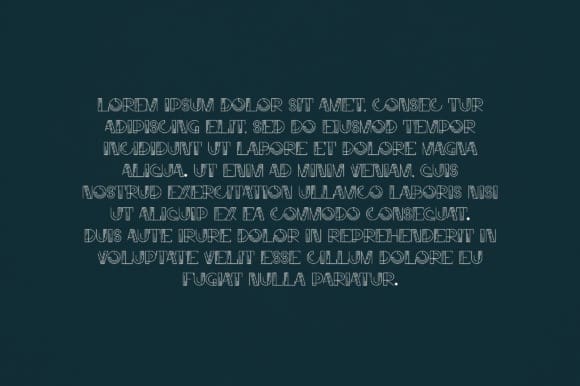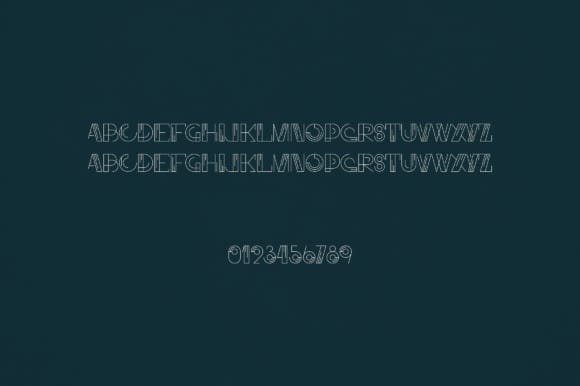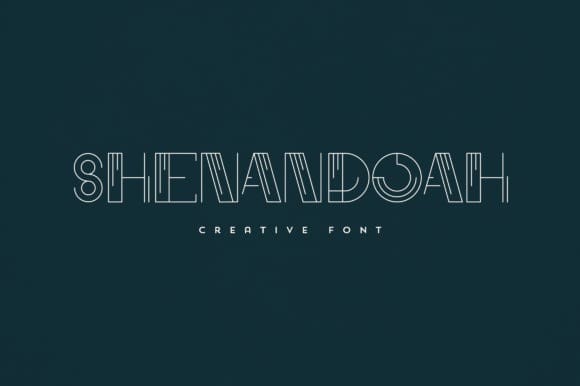
Shenandoah Display Font
Shenandoah Display Font, is an elegant and versatile display font that will make your typography truly unique! It will enchant every logo, branding, headline, or plain text!